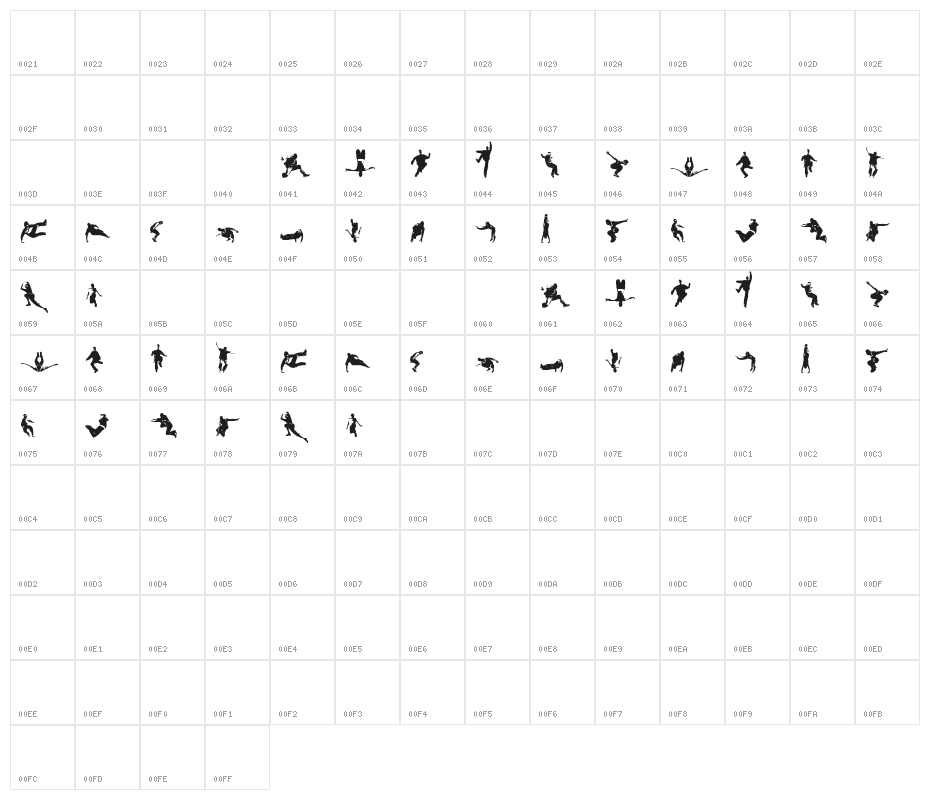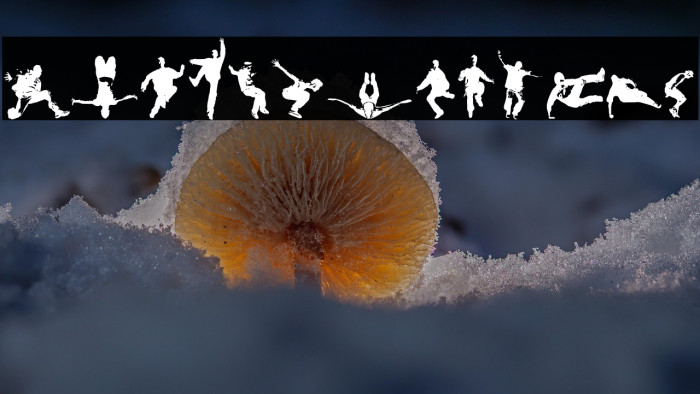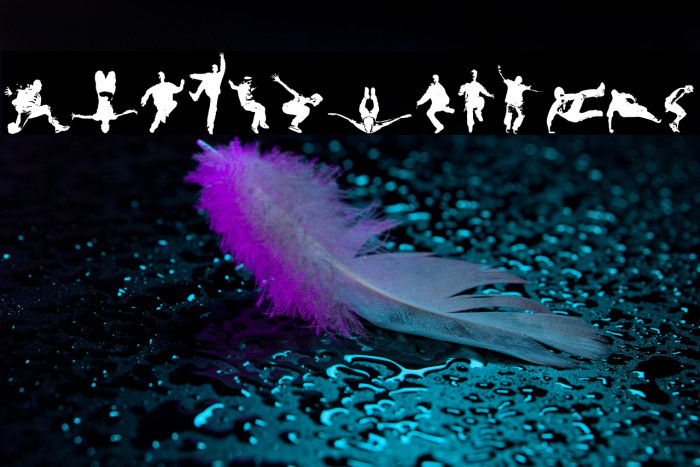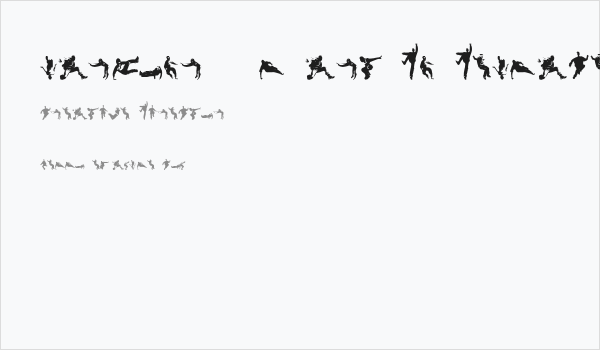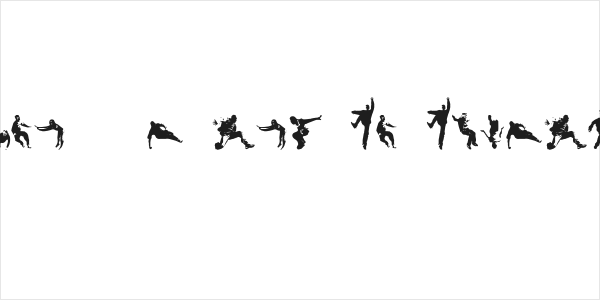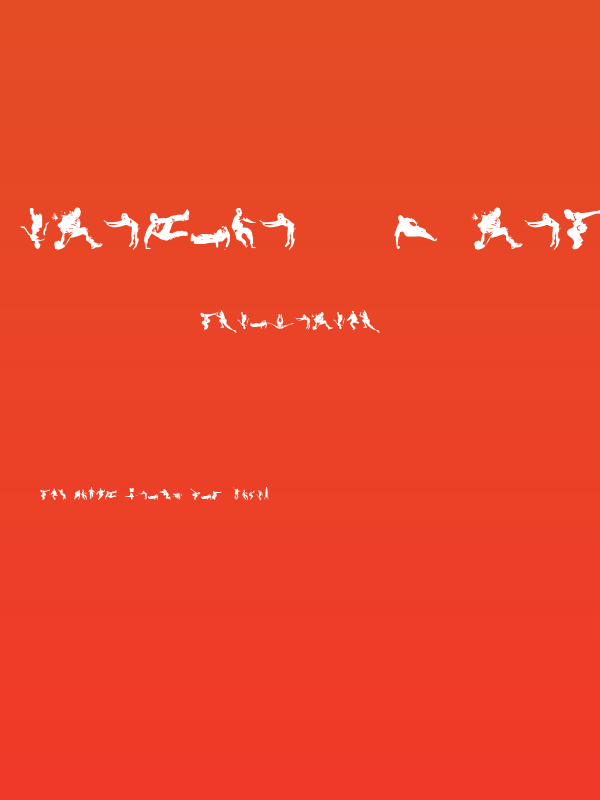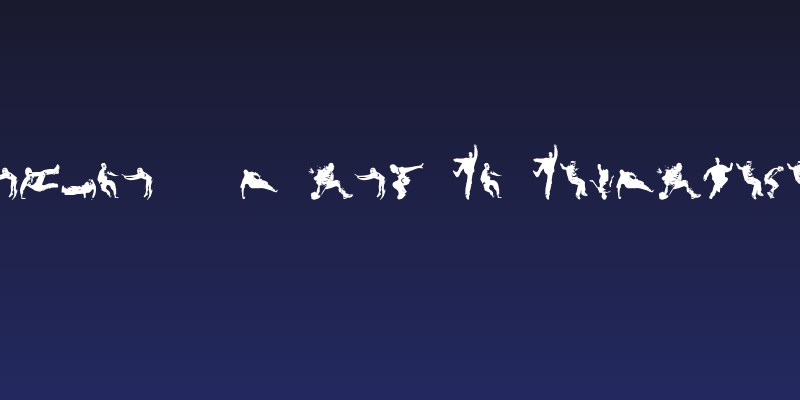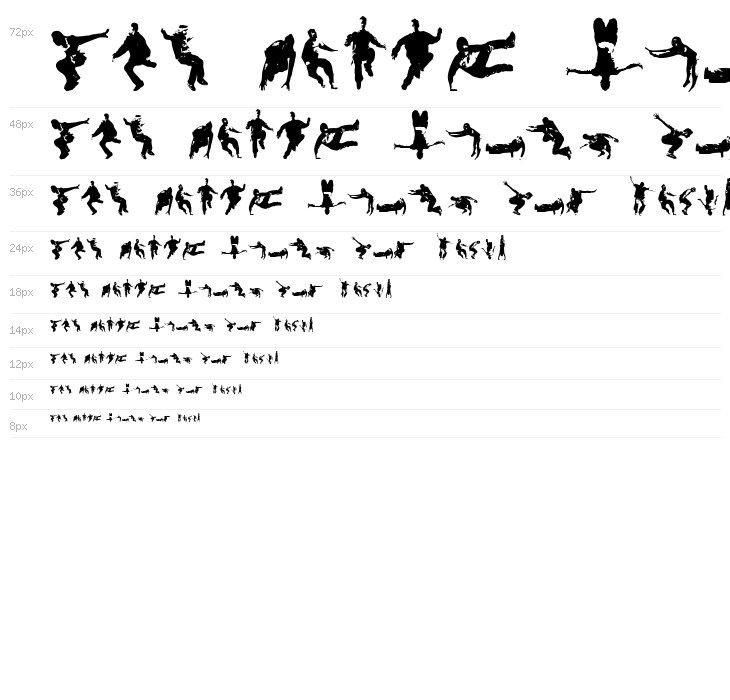
Parkour - L art du deplacement Font
Parkour - L art du deplacement Description
A decorative display font composed of dynamic silhouettes of people performing parkour moves, with each character formed by a unique action pose. The shapes are highly stylized and abstract, focusing on motion and energy rather than traditional letterforms.
| Overall Style | Decorative, Urban, Energetic |
| Use Case | Headlines, Posters, Logos, Themed event materials |
| Proposed Projects | Event posters, sports branding, youth culture graphics, extreme sports advertisements, creative headlines. |